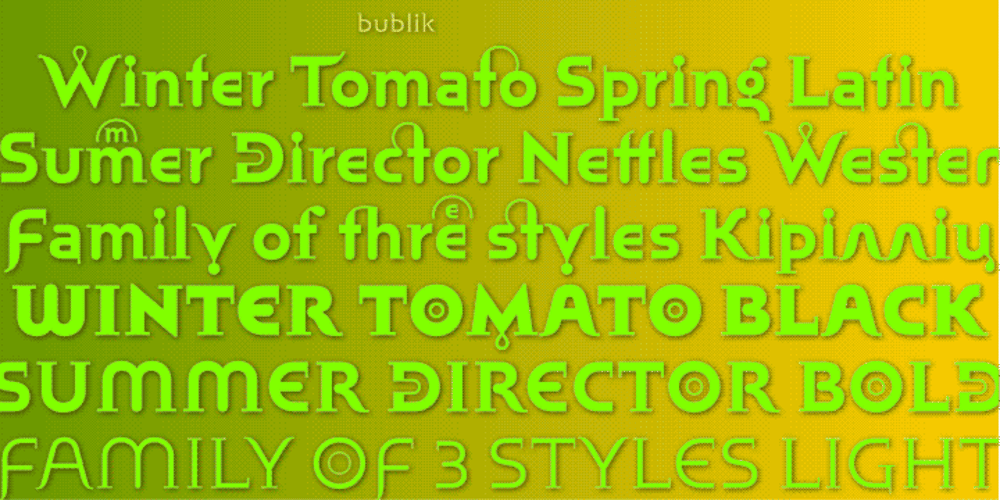
Bublik
Bublik font
Bublik Font Family was designed by Oleg Karpinsky and published by ParaType. Bublik contains 3 styles and family package options. Bublik (one weight) belongs to a mixed stylistic group. It combines features of sans serif and serif typefaces. Some letterforms were inspired by antique Slavic typefaces and scripts of XV-XVIII centuries, especially by skoropis’ (handwriting). The type has a fresh and original look. Bublik was awarded for Excellence in Typographic Design in TDC2 2005 Type Contest.